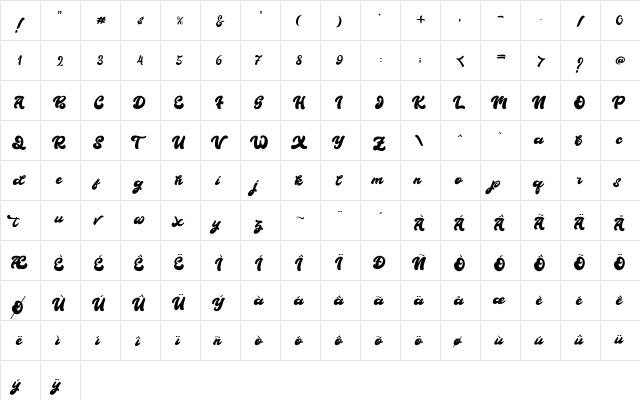
Boldie Script Regular
Design Context for Boldie Script Typeface
Boldie Script brings a calligraphic fluidity to the page — its connecting strokes and expressive curves give it an unmistakably human quality. Its bold stroke weight gives it real presence on the page.
Font Pairing: Combine Boldie Script with a simple geometric sans for maximum contrast — the tension between flowing curves and clean structure is a classic typographic pairing.
Pro Tip: Pair Boldie Script with a clean sans-serif for supporting text. The contrast between fluid script and geometric structure creates an elegant typographic hierarchy.